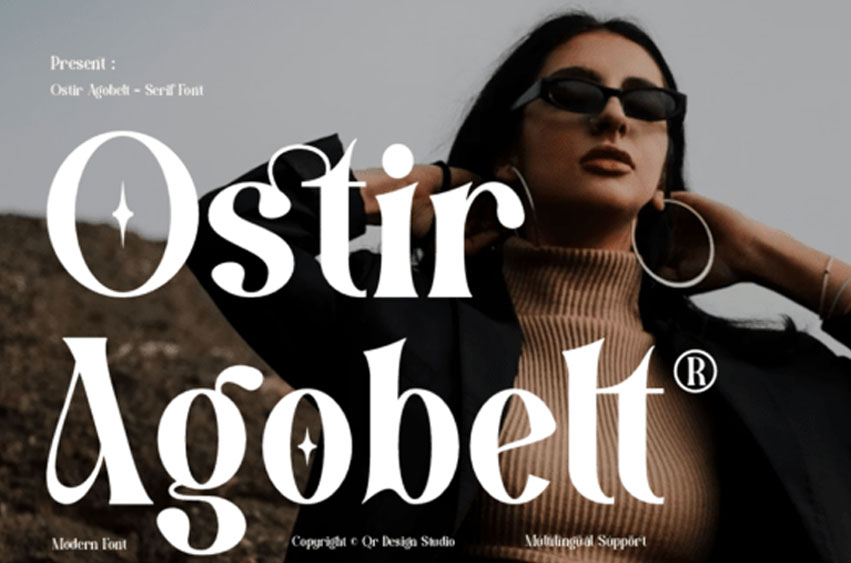
Ostir Agobelt Font
Ostir Agobelt Font Command attention with the sophisticated elegance of Ostir Agobelt, a modern serif font. This typeface features a captivating blend of high-contrast strokes and fluid, organic curves that radiate a sense of high-fashion editorial prestige. Its unique “sparkle” motifs integrated into the circular glyphs and rhythmic, elongated terminals provide a signature look for luxury branding, boutique cosmetic packaging, artisanal lifestyle magazines, and chic social media headers.
Ostir Agobelt delivers a sense of polished artisanal beauty and unyielding professional power to your visual identity, ensuring every headline carries a legendary and unforgettable presence.